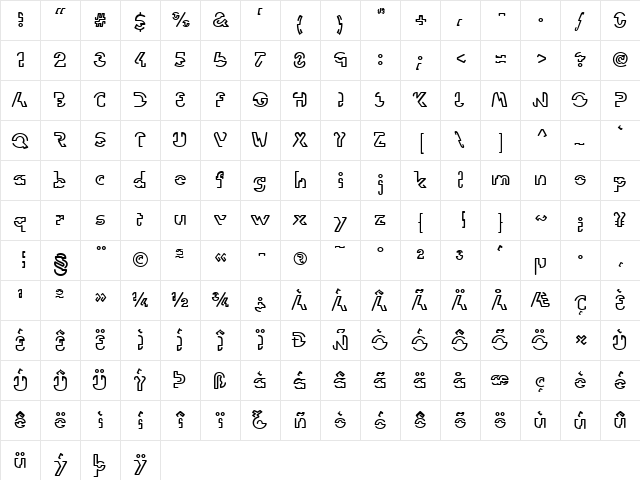
LTVision Medium Font Preview
LTVision Medium
Design Context for LTVision Typeface
LTVision is a composed and adaptable typeface that performs quietly and consistently across a wide range of design contexts.
Pro Tip: Pair LTVision with a font of contrasting weight or personality to build a more expressive typographic hierarchy.